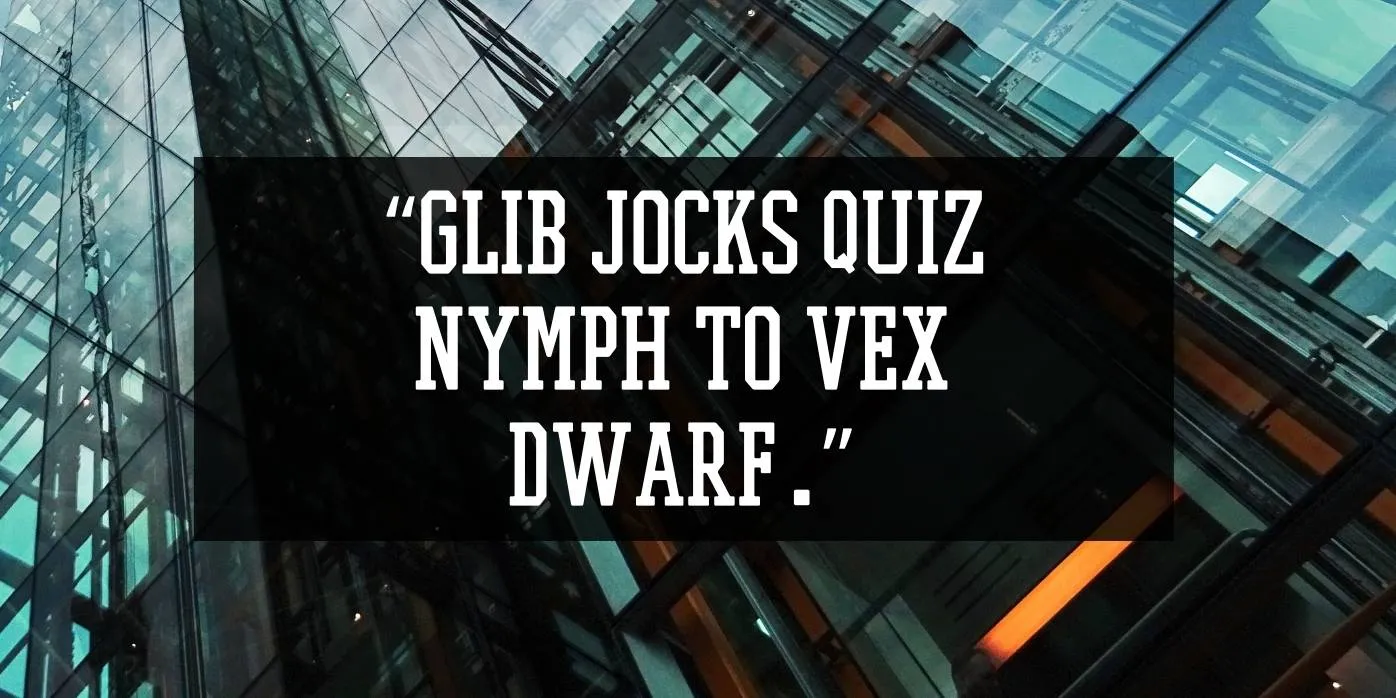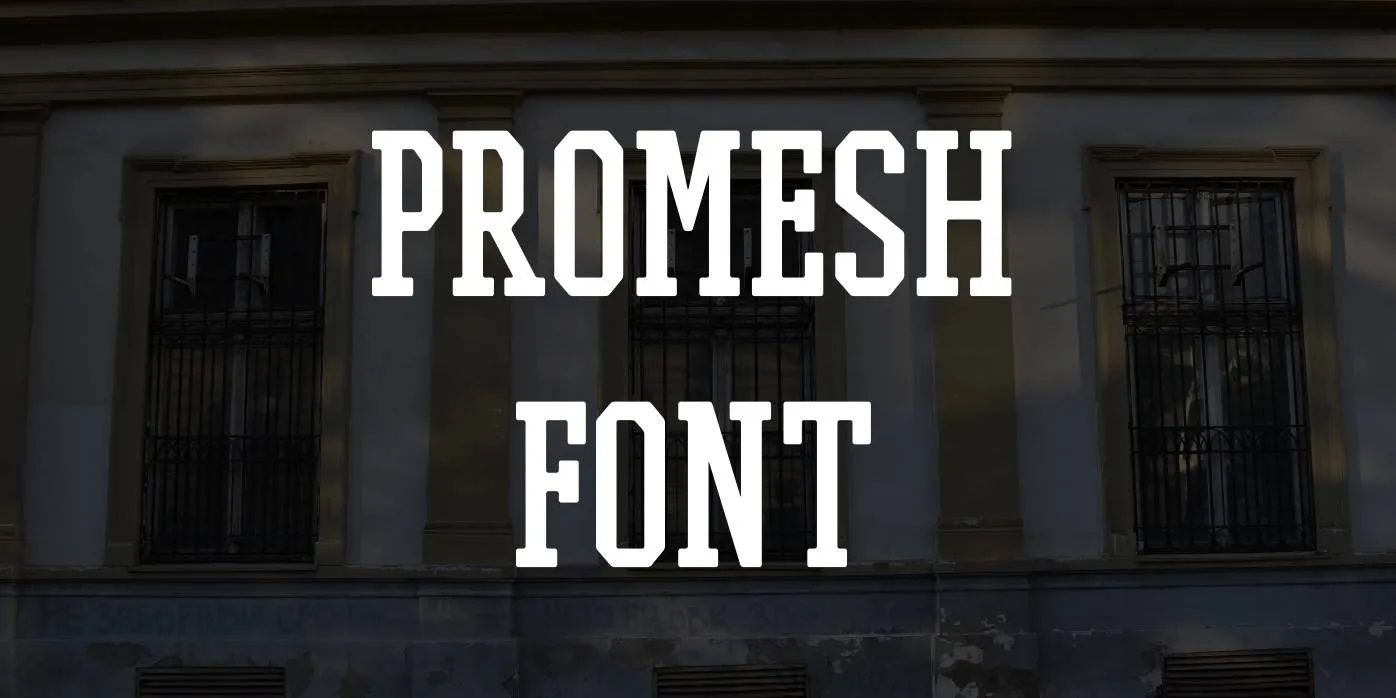
Promesh Font
Today, we are going to discuss a new typeface that is famous with the name Promesh Font. This classy typeface belongs to the display typeface. Paul Reis is the primary designer of this font family. In the year 2014, this cute font family was released to the general public.
This stunning typeface is best for CSS. This classy font is a versatile typeface that can be used for a wide range of purposes. It has a clean and elegant look, making it perfect for headings, titles, logos, and other branding materials. In addition to its looks, Promesh Font also offers excellent readability and legibility even at smaller font sizes.
It is best for Adobe and Canva. Its alternative burbank big condensed font is suitable for various designs with the same features. With its versatility and functionality, this typeface is quickly growing in popularity among designers and typography enthusiasts alike. If you are looking for a unique typeface that is both stylish and functional, then Promesh Font is the perfect choice for you.  For various graphic designs use its online generator tool.